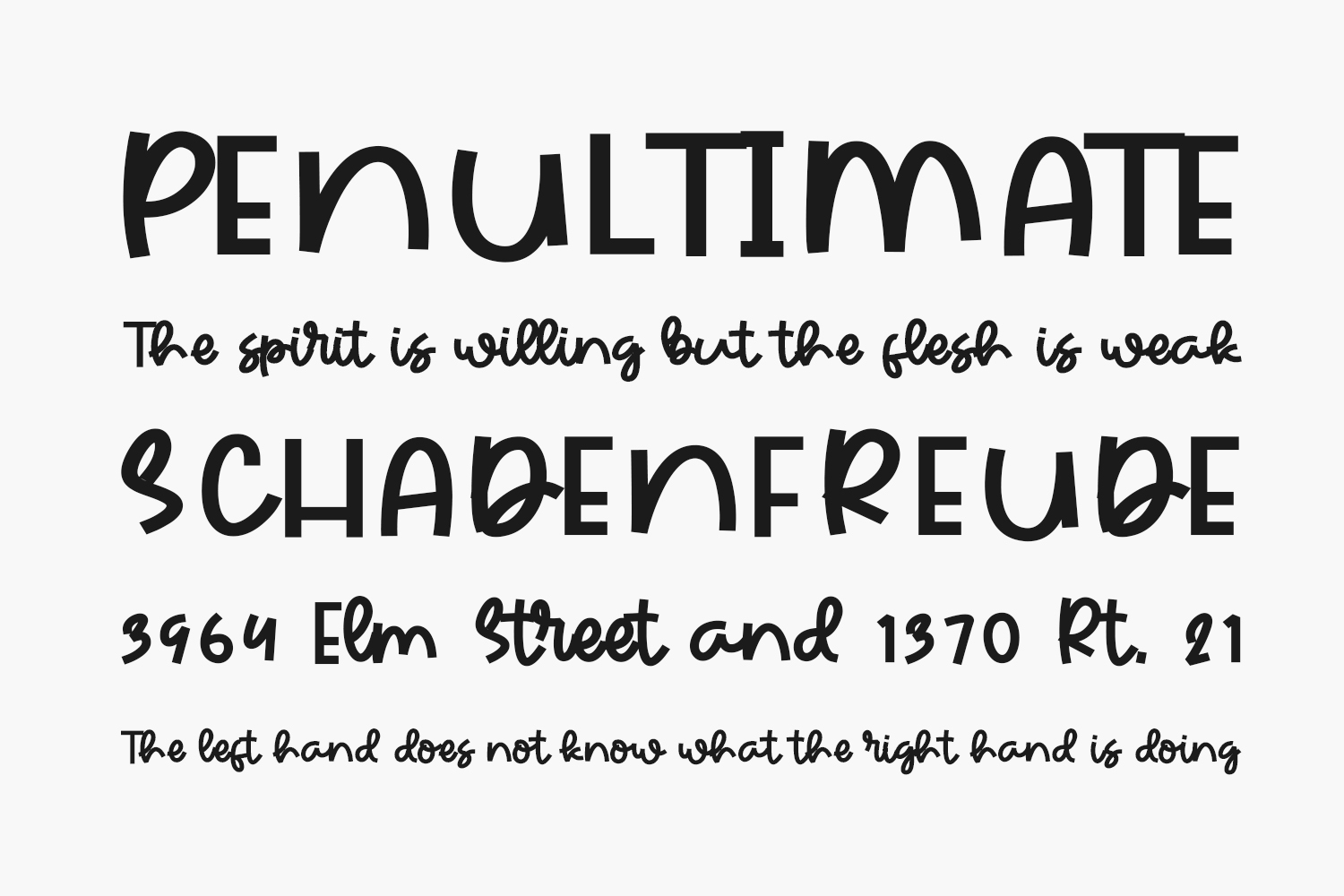
Peach Mezmerize Free Font is a delicate and playful handwritten script. Its graceful nature makes this font perfectly suitable for a variety of creative projects. The sky is the limit. Peach Mezmerize Free Font was designed by ONG Type and is free for personal use only. Please purchase the full version for commercial use.